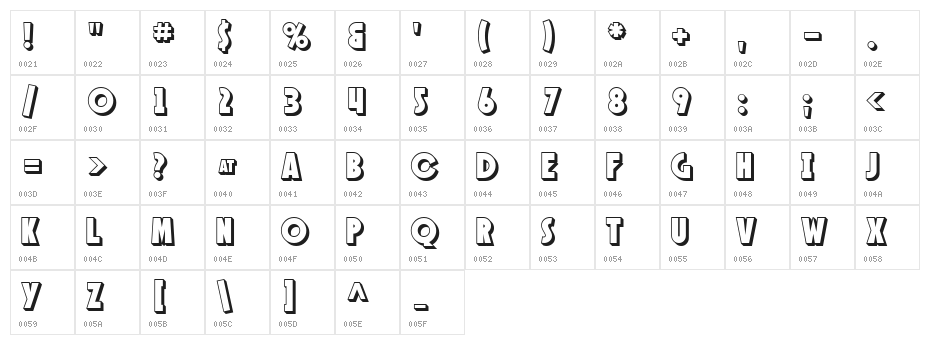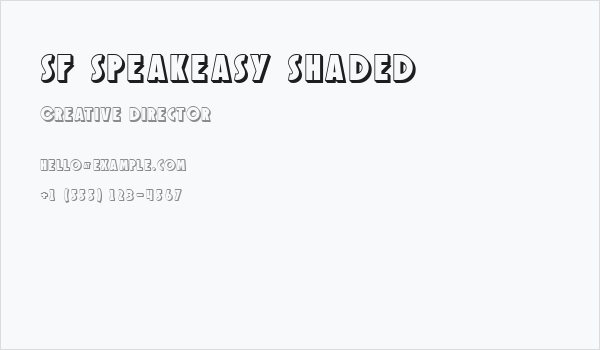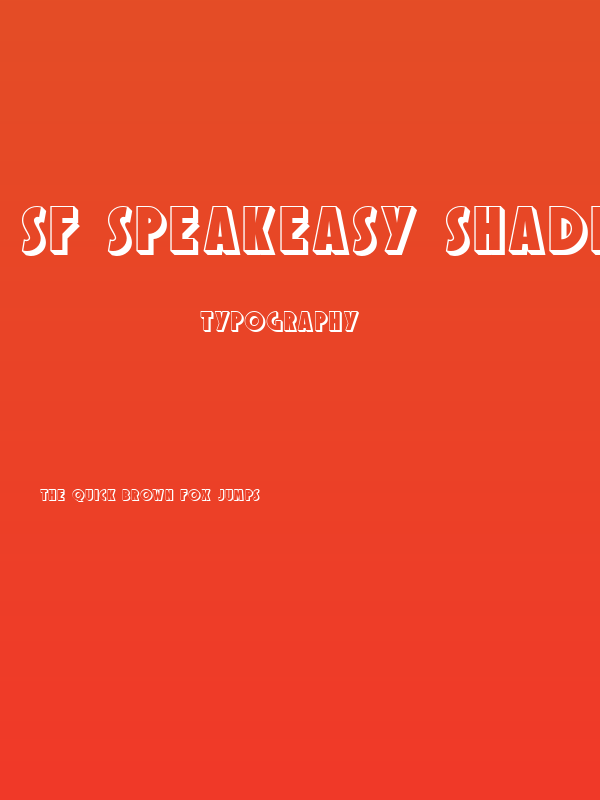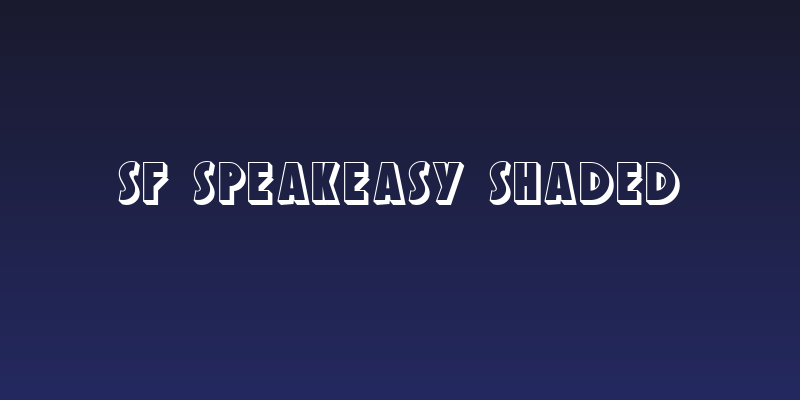
SF Speakeasy Shaded Font
SF Speakeasy Shaded Description
This font features a bold, three-dimensional design with a distinct shadow effect that gives it a striking, eye-catching appearance. The characters are uppercase only, with a geometric structure that emphasizes straight lines and sharp angles. The shading adds depth and a sense of movement, making it ideal for creating a dynamic visual impact. The font's style is reminiscent of vintage signage, evoking a sense of nostalgia and classic elegance. Its bold presence makes it suitable for headlines and display purposes where attention is paramount.
| Proposed Projects | Ideal for retro-themed posters, signage, logos, and branding materials that require a strong visual impact. |